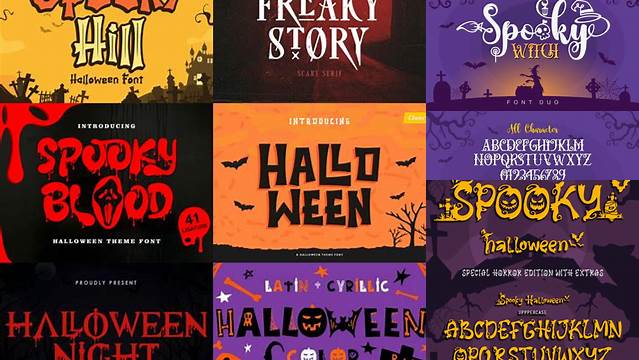
Spooktacular Fonts: Google Fonts For Halloween
Hey everyone! Ready to give your Halloween projects a seriously spooky makeover? You know, that time of year when we get to embrace all things eerie, creepy, and downright fun? Well, one of the easiest and most effective ways to do that is by picking the perfect font. And guess what? Google Fonts has a treasure trove of amazing fonts that are absolutely perfect for anything Halloween-related. Forget boring text! Let's dive into the world of Halloween fonts and discover how Google Fonts can help you create some truly awesome designs. Whether you're designing invitations for a haunted house party, crafting spooky social media posts, or even just making a fun sign for your front yard, the right font can make all the difference. With the right typeface, you can instantly evoke the atmosphere of Halloween, making your project stand out and capture the spirit of the season. We'll explore some of the best Halloween fonts available on Google Fonts, how to use them, and how to combine them for the ultimate spooky effect. Get ready to transform your creative projects into something truly haunting!
1. Unleashing the Spook: What Makes a Great Halloween Font?
Alright, guys, let's talk about what makes a Halloween font, well, a Halloween font. It's not just about picking a font that looks vaguely scary; it's about choosing one that complements the overall theme and adds to the creepy atmosphere. Think about what you want to convey: are you going for a classic horror vibe, a fun and playful approach, or something in between? A great Halloween font should reflect the spirit of the season. Look for fonts that have unique characteristics. This could include things like dripping blood effects, spiderweb-like lines, or even fonts that mimic the handwriting of a mad scientist. The key is to choose fonts that evoke the right emotions and align with your project's specific needs. A good font will also be legible, especially if it's used for text that needs to be read. Nobody wants their awesome message to be lost because the font is too hard to decipher! Consider the context where the font will be used. Is it for a large poster, or a small invitation? The legibility of the font will depend on the context. Halloween fonts should be versatile enough to work across various design elements. You might need a font for headings, body text, and even decorative elements. The best fonts are those that can be used in multiple ways. Another factor to consider is the overall style of the font. Some fonts are better suited for specific themes. If you’re aiming for a classic monster look, a font that looks like it came from an old movie poster might be ideal. If you're going for a more playful approach, a font that looks a bit cartoonish can be a great choice. Ultimately, a great Halloween font should be evocative, readable, and versatile. Keep these aspects in mind, and you'll be well on your way to finding the perfect font for your projects. Remember, the goal is to enhance your design and capture the essence of the season. Think about the emotion you want to convey: is it terror, amusement, or nostalgia? The right font can help you express it.
2. Google Fonts: Your Halloween Font Paradise
So, why Google Fonts, you ask? Well, for starters, it's free! Yes, you read that right. You get access to a massive library of fonts without spending a dime. This is a game-changer for anyone who loves to create, whether you're a seasoned designer or just starting out. This huge library of fonts is well-organized and incredibly easy to use. You can easily browse through different font styles and categories, making it simple to find exactly what you're looking for. Another major advantage of using Google Fonts is its excellent compatibility. You can easily incorporate the fonts into your designs, no matter what platform or software you use. This flexibility allows you to create consistent branding across various mediums. Google Fonts supports numerous languages, ensuring you can reach a diverse audience. This is very helpful if you plan on sharing your design across multiple regions. Finally, and perhaps most importantly, Google Fonts are optimized for both web and print. This means that the fonts will look great whether you're creating a website, designing a poster, or crafting a digital invitation. Choosing a font from Google Fonts means that you can be confident in the quality and usability of your design. When exploring Google Fonts for your Halloween project, take advantage of the search and filtering tools. You can easily narrow down your search by selecting different font styles, weights, and even character sets. This makes it effortless to find fonts that perfectly match your design needs. By tapping into the resources of Google Fonts, you can make sure that you create designs that are not only visually appealing, but are also accessible and easy to implement.